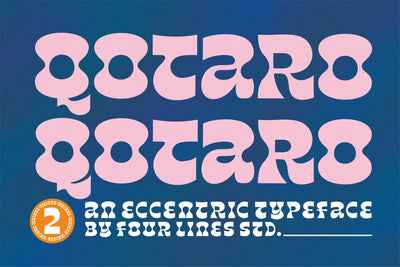
Qotaro - Decorative Display Font
Timeless Appeal: "Qotaro Font" transcends trends and borders. Its charm is universal, making it a font that resonates with audiences around the world. No matter where you are, elegance is always in style.
Elevate your designs to a new level of sophistication with "Qotaro" font. It's the key to adding a touch of retro glamour to your projects.